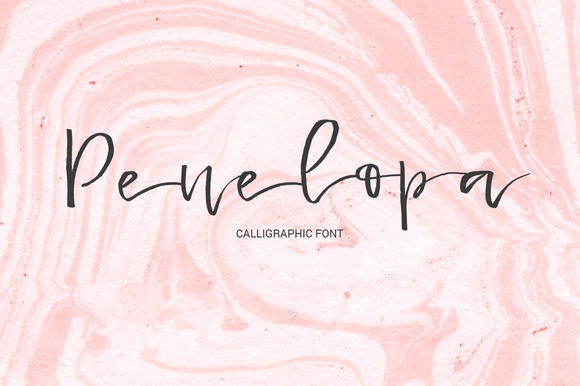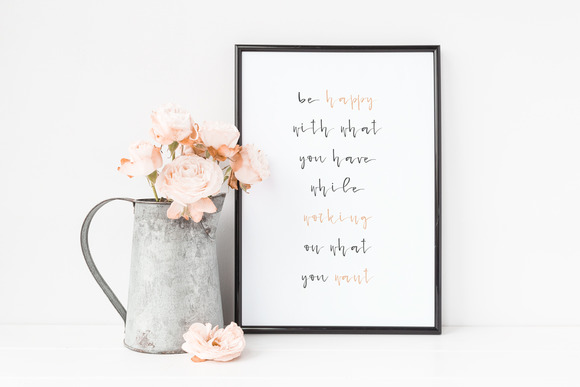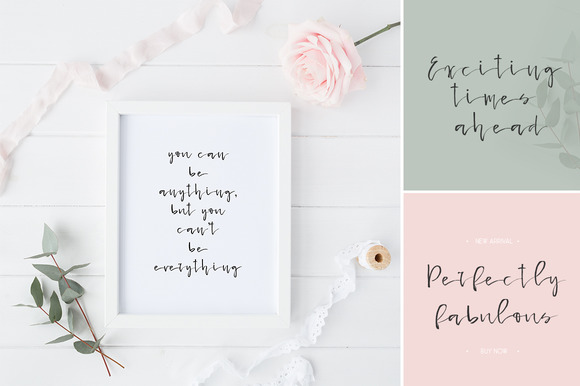
HomeScript FontsPenelopa Font Script Fonts Penelopa Font FacebookXPinterestWhatsApp Penelopa Font Poster 2 Penelopa Font Poster 3 Penelopa Font Poster 4 Penelopa Font Poster 5 Penelopa Font Poster 6 Penelopa Font Poster 7 About Penelopa Font Penelopa is a sweet thin calligraphy-style font. It features elegant thin handwritten lines. DOWNLOAD NOW People also explored Filth Wooden House Font Margarita Font Justices Font Easter Font Kitty Cute Font Vibally Calligraphy Font Blacktime Font Loveless Font 284 0 TagsPenelopa Font Previous articleSiberia FontNext articleLancaster Font LEAVE A REPLY Cancel reply Comment: Please enter your comment! Name:* Please enter your name here Email:* You have entered an incorrect email address! Please enter your email address here Website: Save my name, email, and website in this browser for the next time I comment. Personal Use Free Harshita Personal Use Free Read more about this font Pasile Personal Use Free Read more about this font The Sweet Neo Personal Use Free Read more about this font Coolvetica Font Personal Use Free Read more about this font BLOG How to Cut Any Font on Cricut: Convert a Font to SVG (Free) Turn any font into a clean SVG so it cuts crisp on Cricut - a quick 3-step workflow using a free font-to-SVG tool. To increase your work productivity, choose the most readable fonts. Best Fonts for YouTube Videos: Make Your Thumbnails Stand Out Free Fonts Risk: Why Free Fonts Can Be Dangerous for Designers